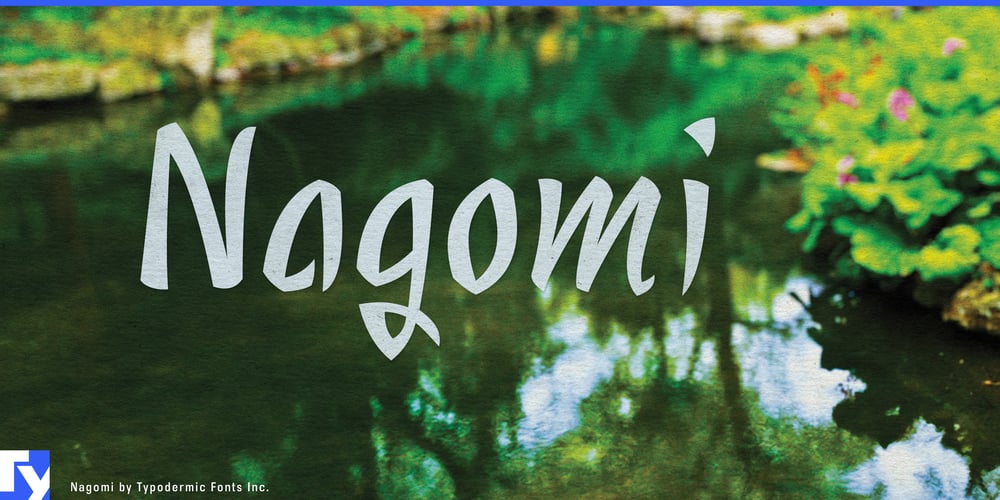
Nagomi
Nagomi font
Nagomi Font Family was designed by Ray Larabie, Chikako Larabie and published by Typodermic. Nagomi contains 1 styles and family package options. Nagomi whispers its beauty across the page, a brush display typeface that captures the essence of tranquility in every stroke. This isn’t just a font; it’s a meditation in letterforms, inviting designers to pause and breathe in its serene aesthetic.Imagine your words flowing like a gentle stream, each character a masterful brushstroke painted by an unseen hand. Nagomi’s delicate lines and graceful curves evoke the quiet rustle of bamboo leaves in a Zen garden, bringing a touch of Eastern philosophy to Western design. It’s as if each letter has been carefully considered, a visual haiku that speaks volumes in its simplicity. But Nagomi’s charm isn’t confined to a single cultural context. Its extensive language support ensures that this typeface can bring its calming presence to designs across Europe and beyond. From the fjords of Norway to the sun-drenched coasts of Portugal, Nagomi speaks the universal language of elegance and poise.In a world of loud, attention-grabbing typefaces, Nagomi stands apart—a quiet sanctuary for the eyes. It’s the perfect choice for brands that whisper rather than shout, for messages that seek to soothe rather than stimulate. Imagine it gracing the pages of a mindfulness journal, adorning the packaging of artisanal teas, or lending its grace to a spa’s branding. Nagomi isn’t just used; it’s experienced. As you incorporate it into your designs, you might find yourself working with a newfound sense of calm and purpose. It invites you to slow down, to consider each curve and flourish, to create with intention and mindfulness.Ready to infuse your projects with a breath of fresh air? Let Nagomi be your brush, and watch as it transforms your designs into visual oases of calm. Whether you’re crafting a logo that needs to exude serenity, designing packaging that whispers luxury, or simply seeking to add a touch of grace to your everyday creations, Nagomi is your partner in typographic tranquility.